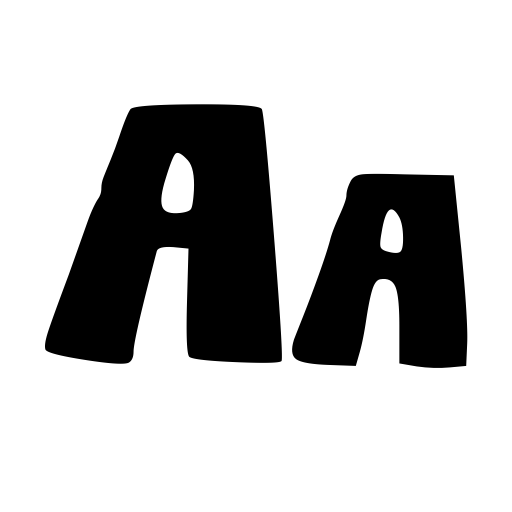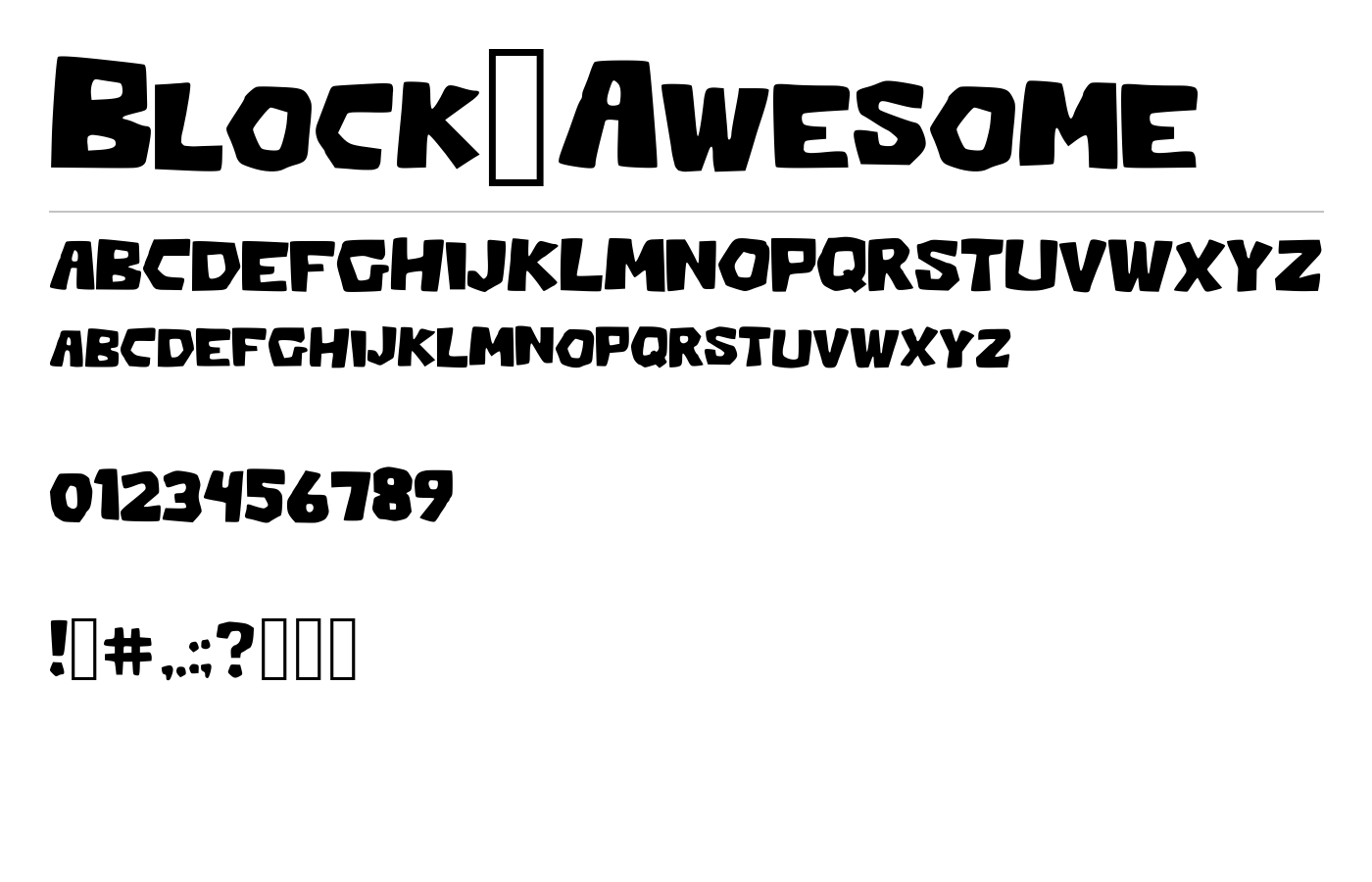
Block_Awesome is a bold, playful sans serif font characterized by chunky, irregular shapes and a slightly quirky, hand-drawn feel. Its uneven strokes and strong presence make it perfect for fun, eye-catching headlines, logos, or designs aimed at a youthful and casual audience. This font works well in creative projects that want to convey energy and approachability with a unique, informal style.
Block_Awesome Font
About Block_Awesome Font